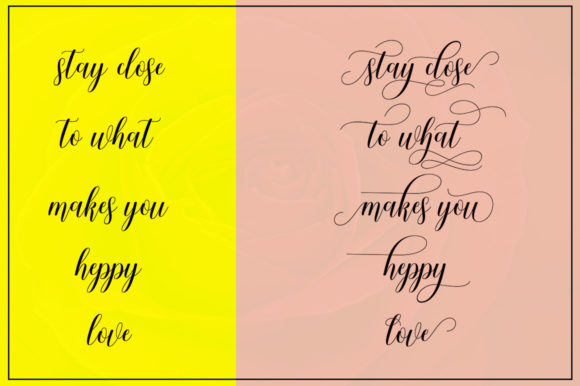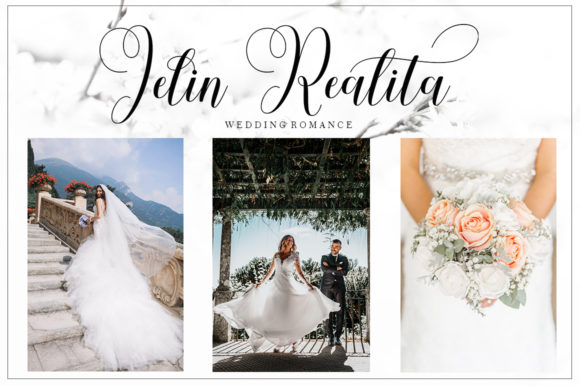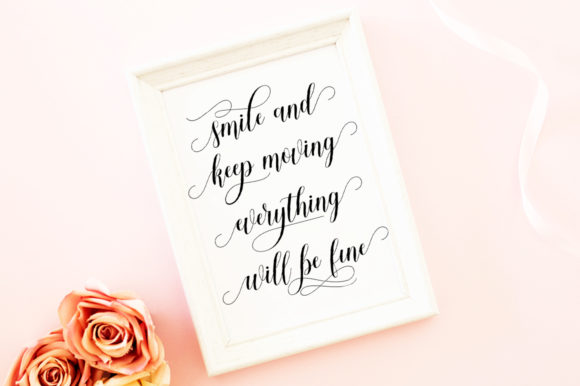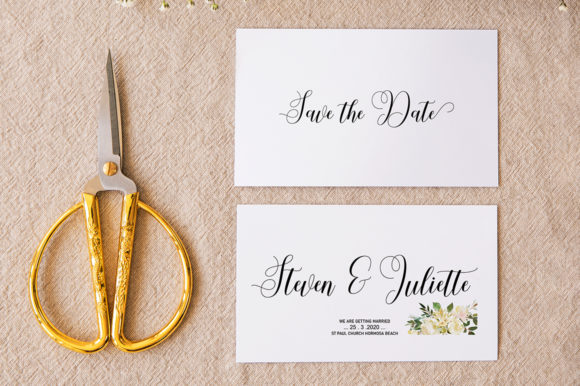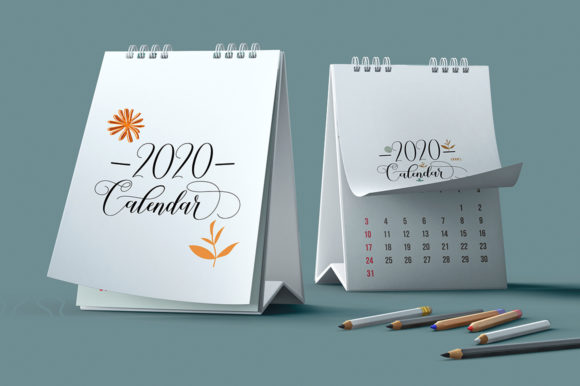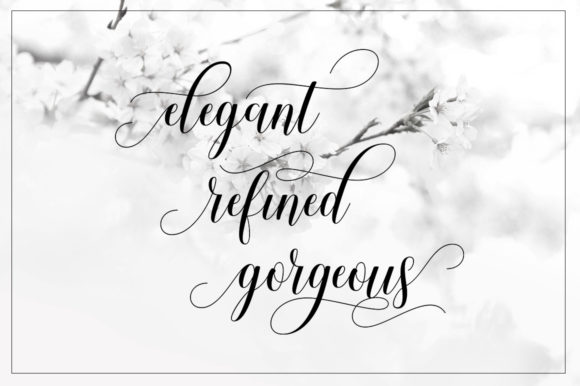
Introduction to Hellowita Font
Hellowita is a gorgeous and light script font with fabulous swashes.
Fall in love with its contemporary charm .
Key Features of Hellowita Font